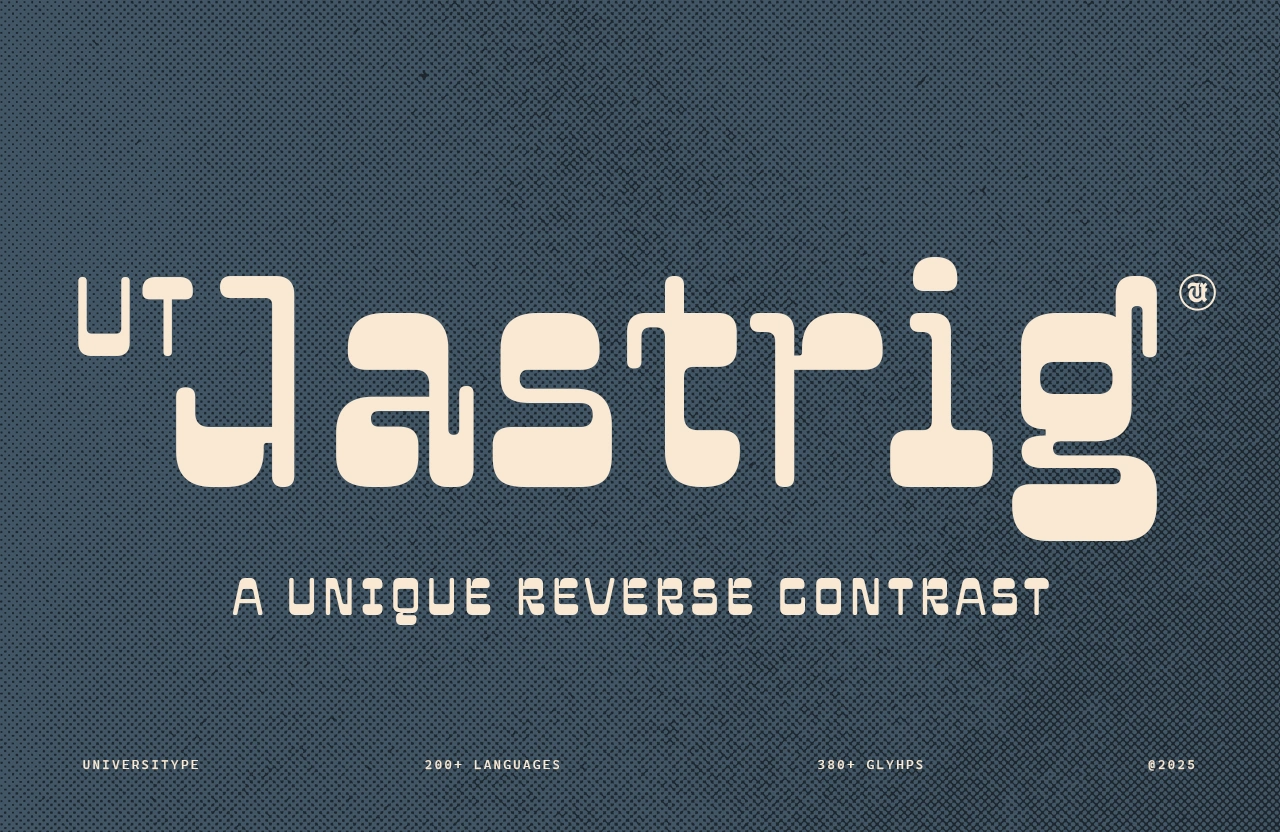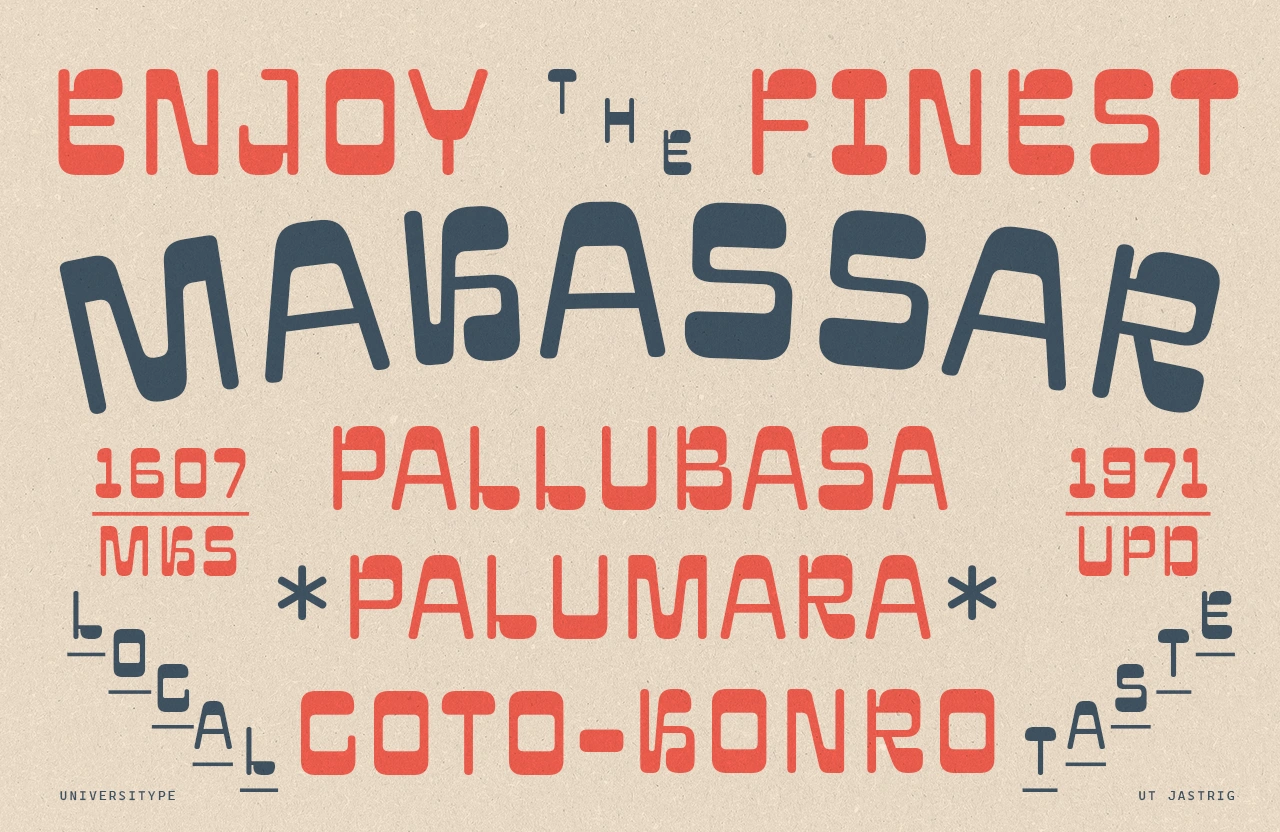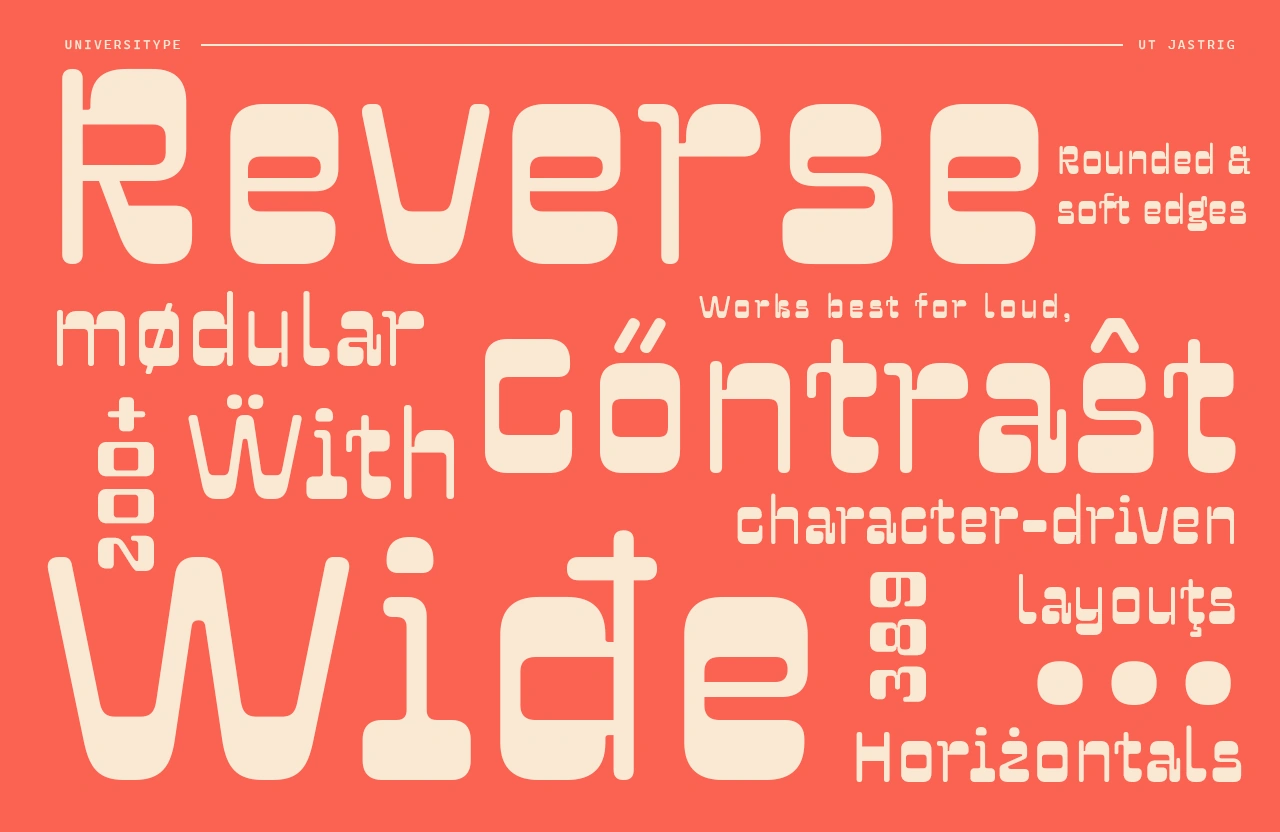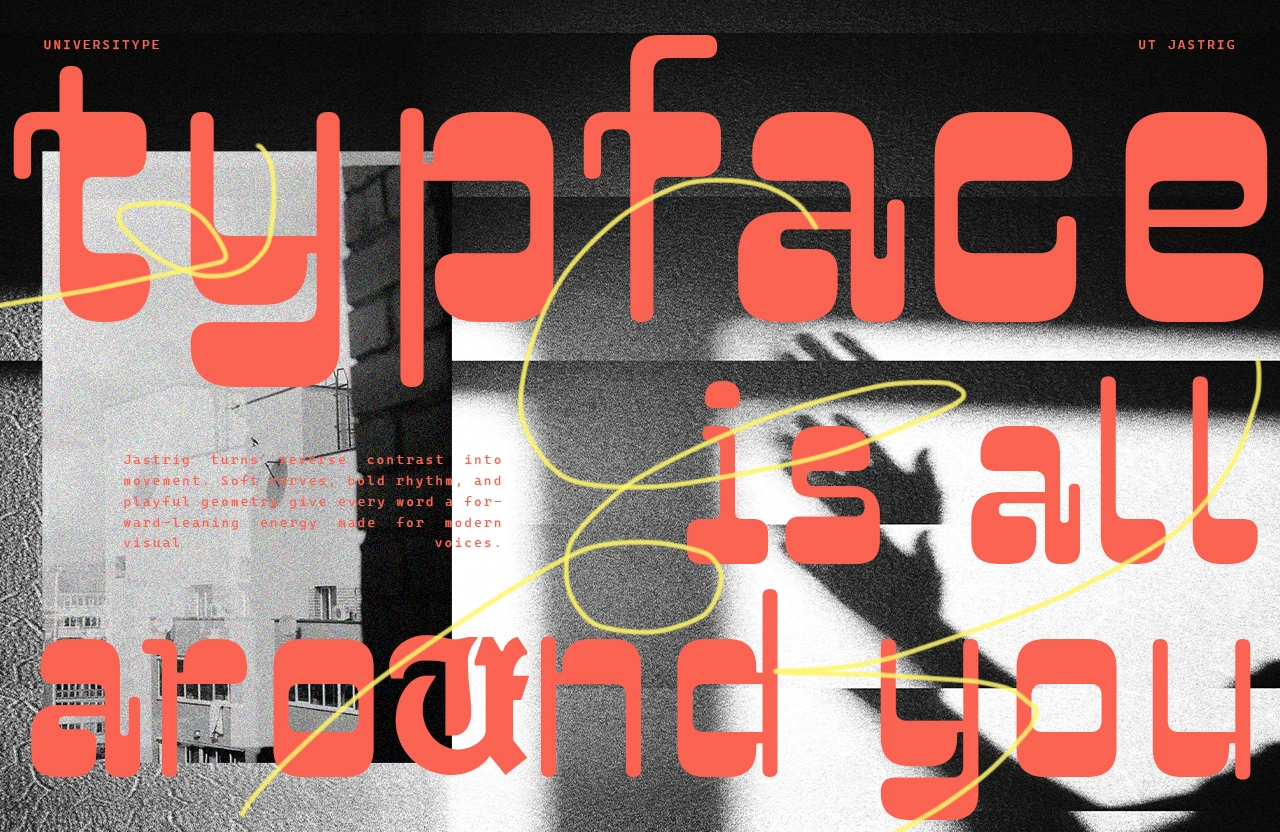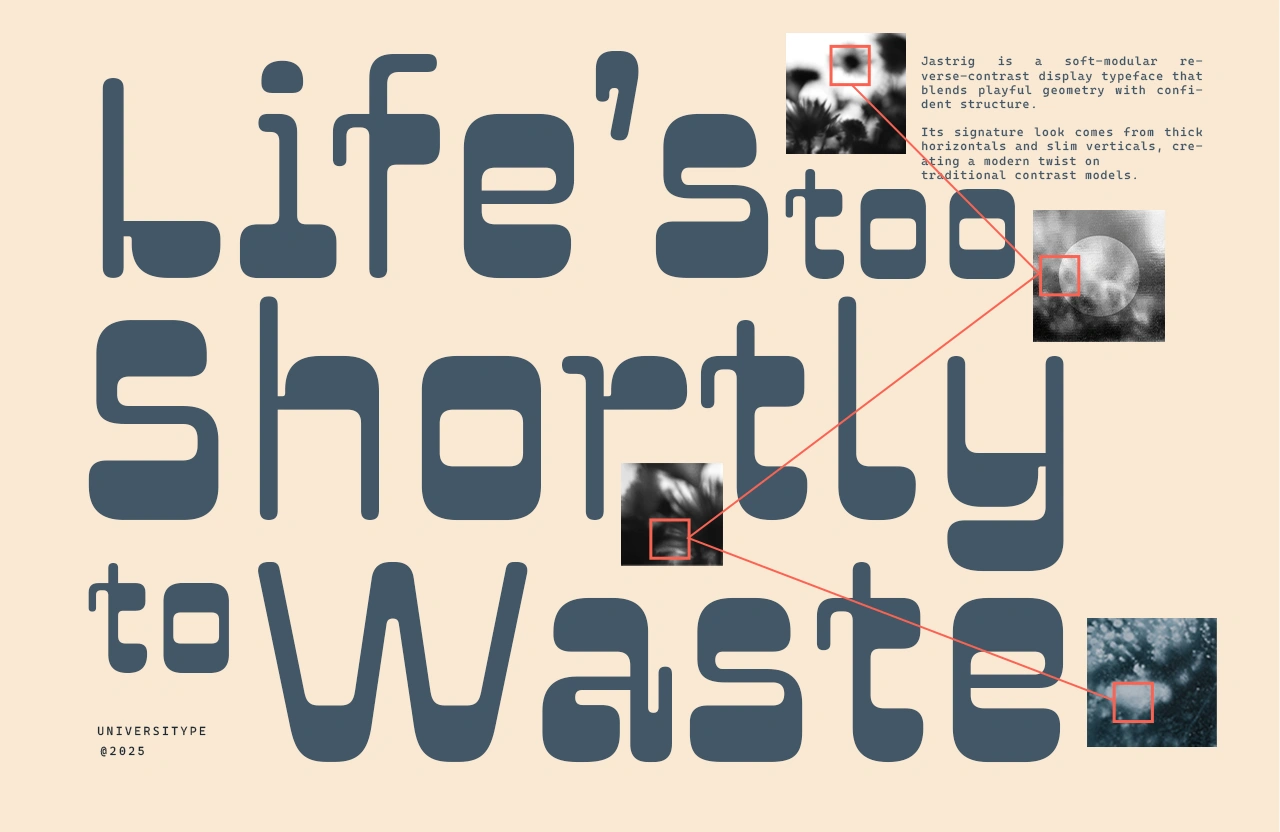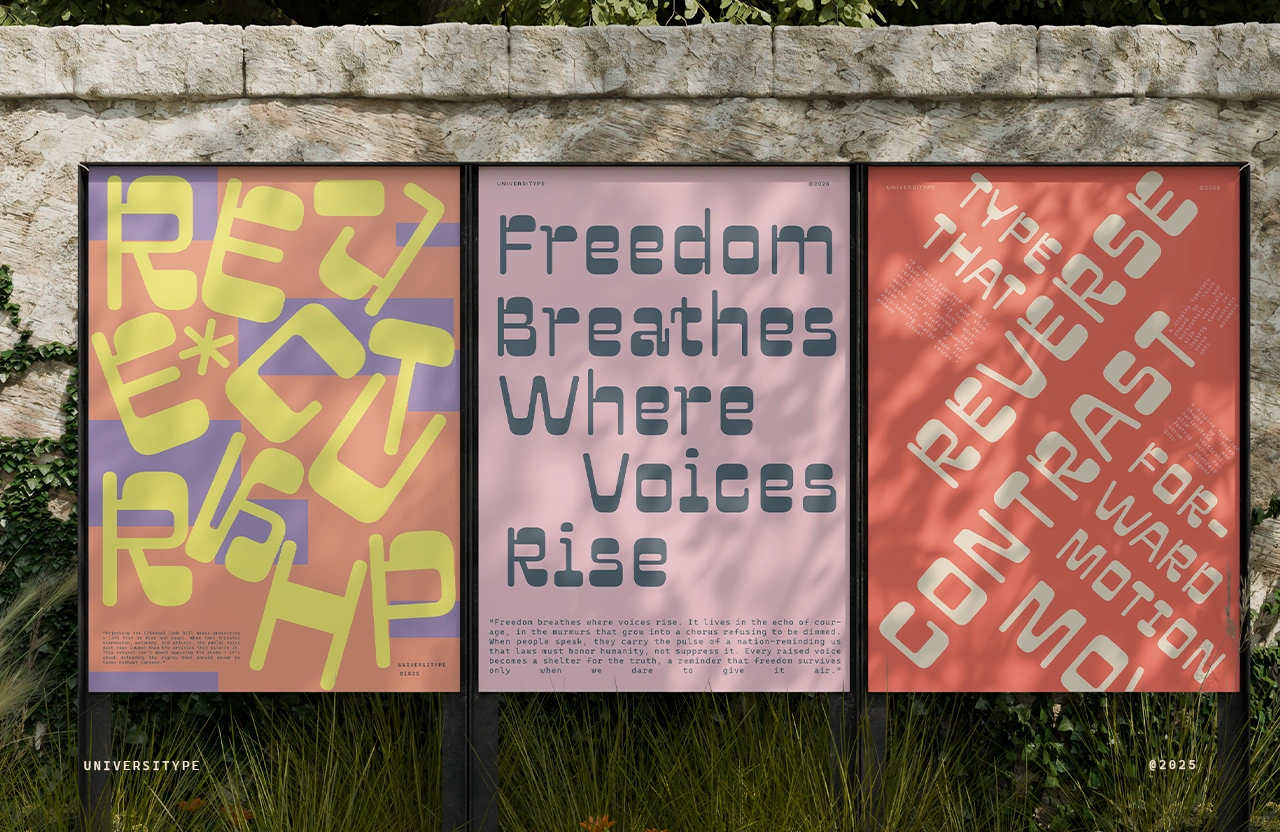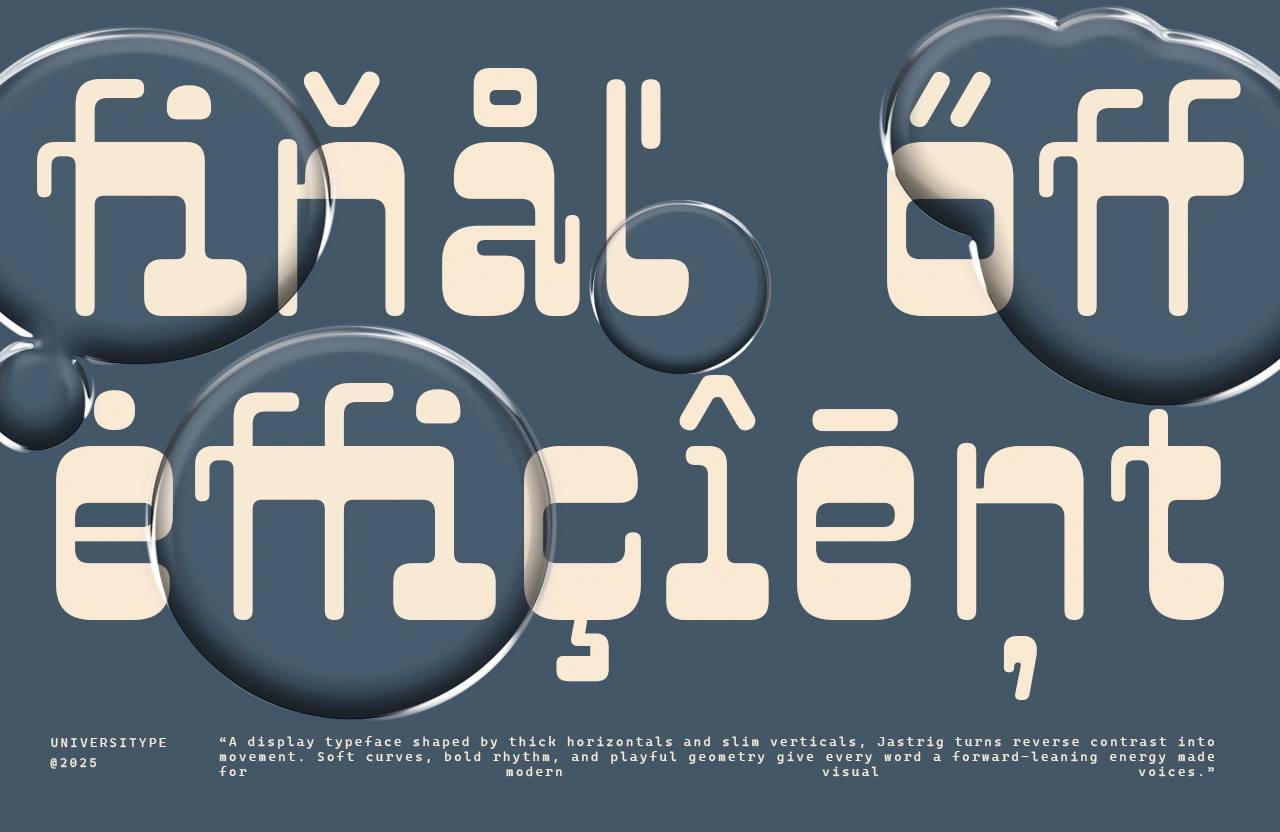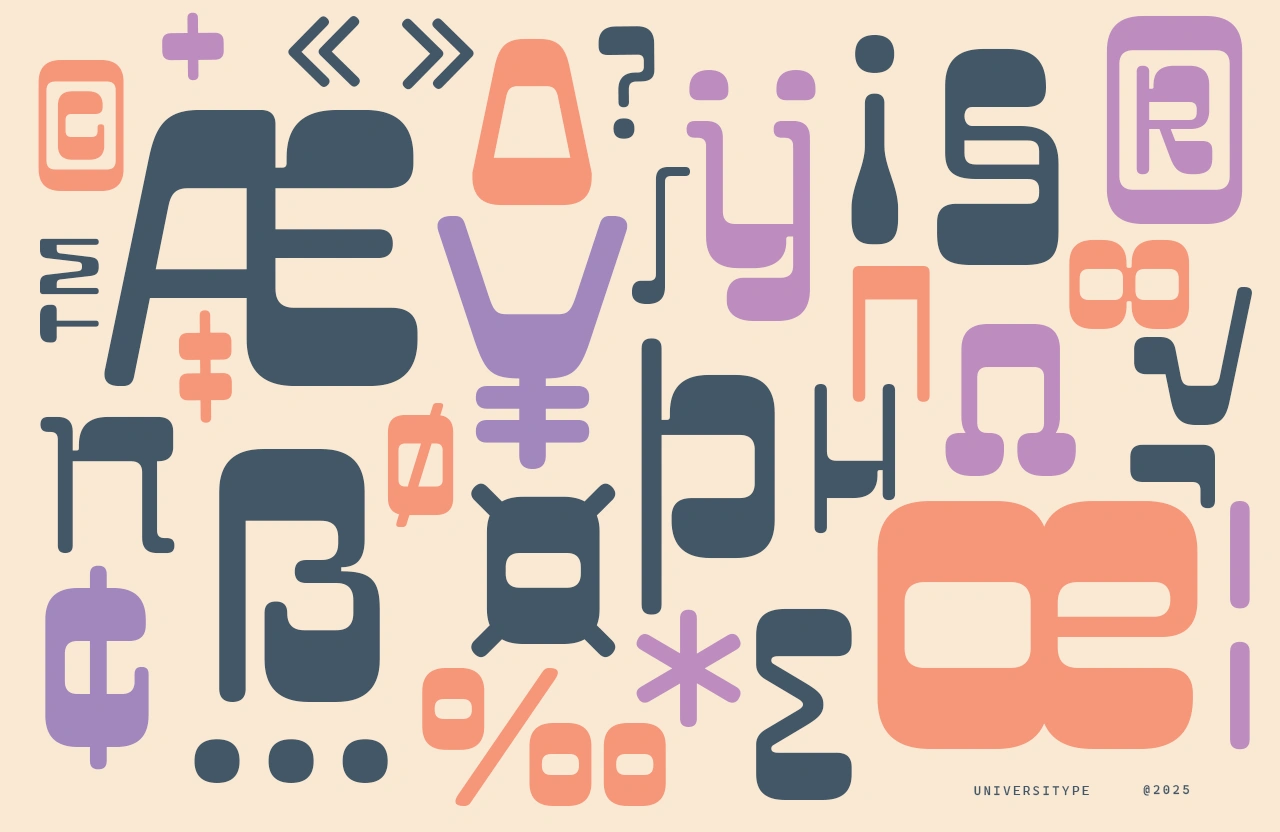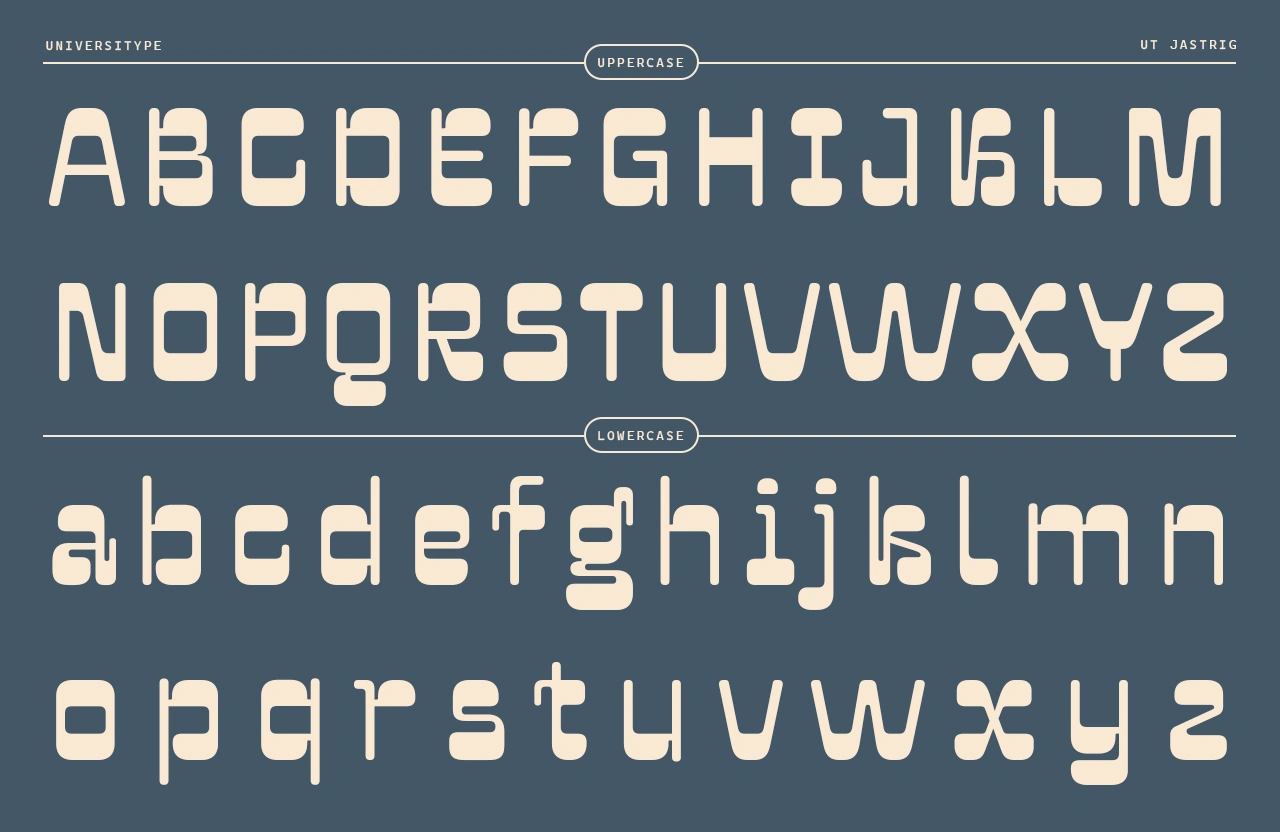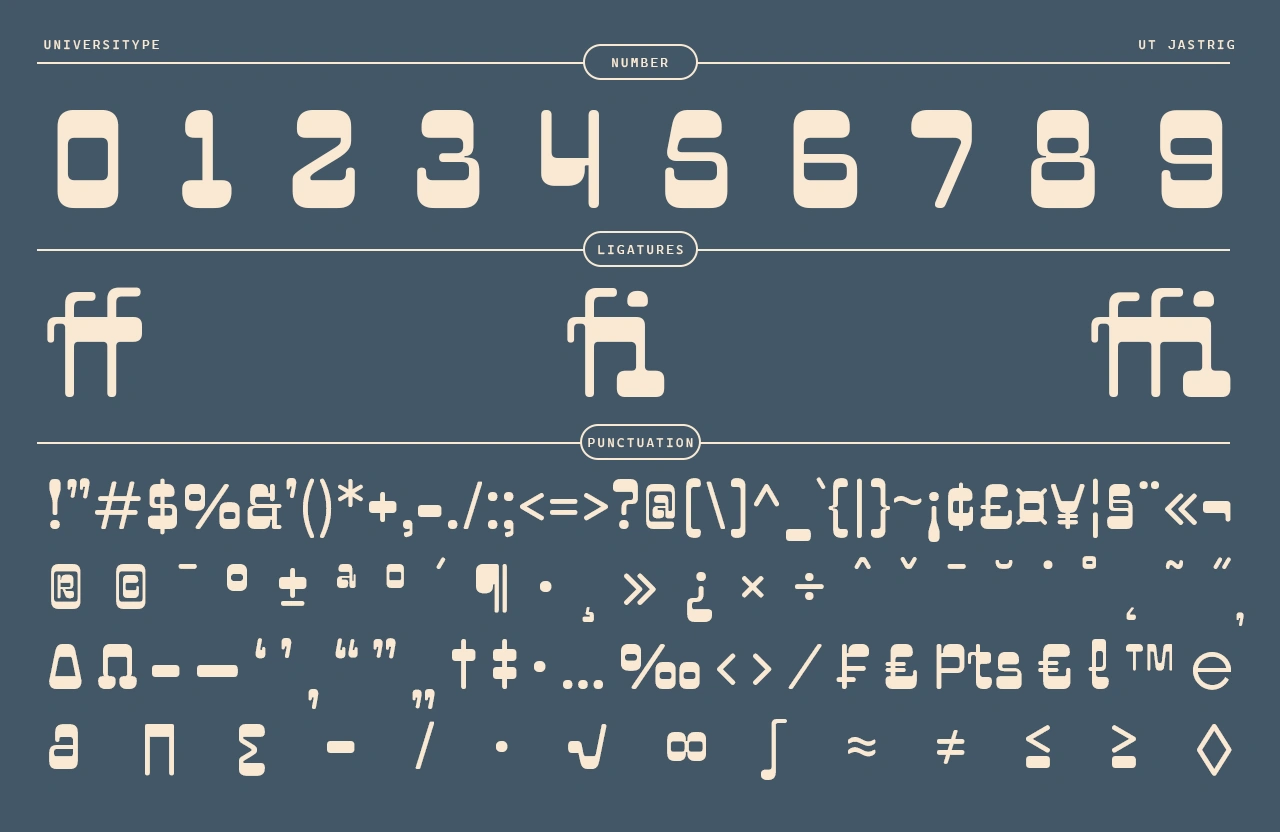
UT Jastrig
UT Jastrig is a display typeface built around a simple idea: flip the contrast and let the horizontals take control. By shifting the weight away from vertical strokes, Jastrig creates a rhythm that feels unexpected yet balanced, bold yet friendly.
UT Jastrig –  A Unique Reverse-contrast Typeface
UT Jastrig is a display typeface built around a simple idea: flip the contrast and let the horizontals take control. By shifting the weight away from vertical strokes, Jastrig creates a rhythm that feels unexpected yet balanced, bold yet friendly.
The letterforms lean into soft curves and rounded terminals, giving the font a warm, playful tone without losing structure. There’s a subtle nod to vintage signage and experimental print, blended with a modern finish that keeps it relevant for contemporary design work.
Jastrig works best when it’s allowed to breathe and be seen. At larger sizes, its reverse-contrast construction and chunky shapes come alive, adding character and confidence to any layout.
Whether you’re designing posters, brand identities, editorial headlines, or packaging, UT Jastrig brings a distinctive voice that feels expressive, thoughtful, and full of personality.
Features
• Reverse contrast display construction
• Smart standard and discretionary ligatures
• Stylistic alternates for select characters
• Case-sensitive punctuation
• Manually kerned with over 2,000 pairs
• Multilingual diacritics